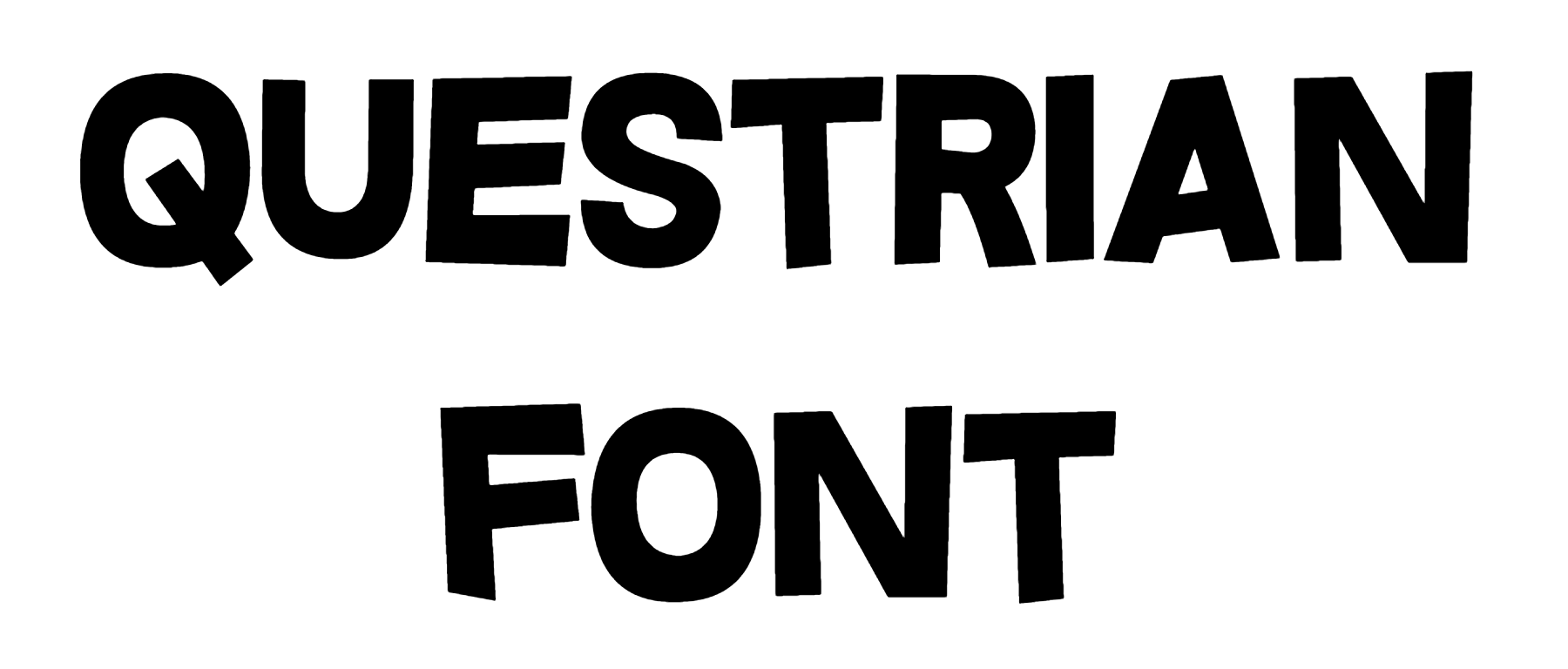
Questrian
Questrian is a sans serif font (2014). Its clean letters skip the little "feet" (serifs) of traditional type, so it looks modern and reads well on screens. It's a free download, and you can try it with your own text in the preview above first.
You get every letter from A to Z in both cases and all the numbers from 0 to 9, which means Questrian can handle full sentences, dates and prices. Everyday marks like &, !, ? and @ are there too. Thanks to its accented letters, it also works for Spanish, French, German, Portuguese and Italian, not just English.
Think of Questrian for websites, app screens and clean logos. It works for headings and body text alike. If the download has several weights, use a heavier one for titles and a lighter one for paragraphs.
Yes. Questrian includes the accented letters needed for Spanish, French, German, Portuguese and Italian, so it works for more than just English.